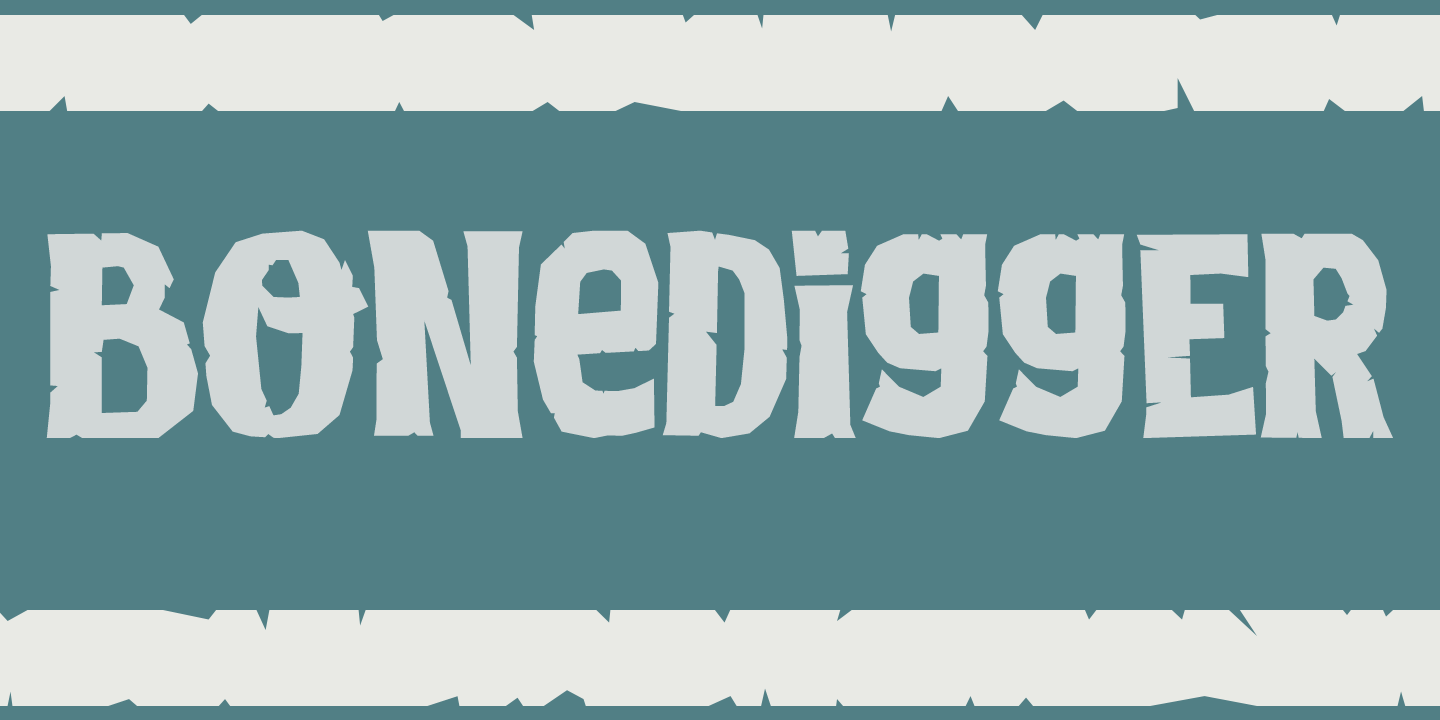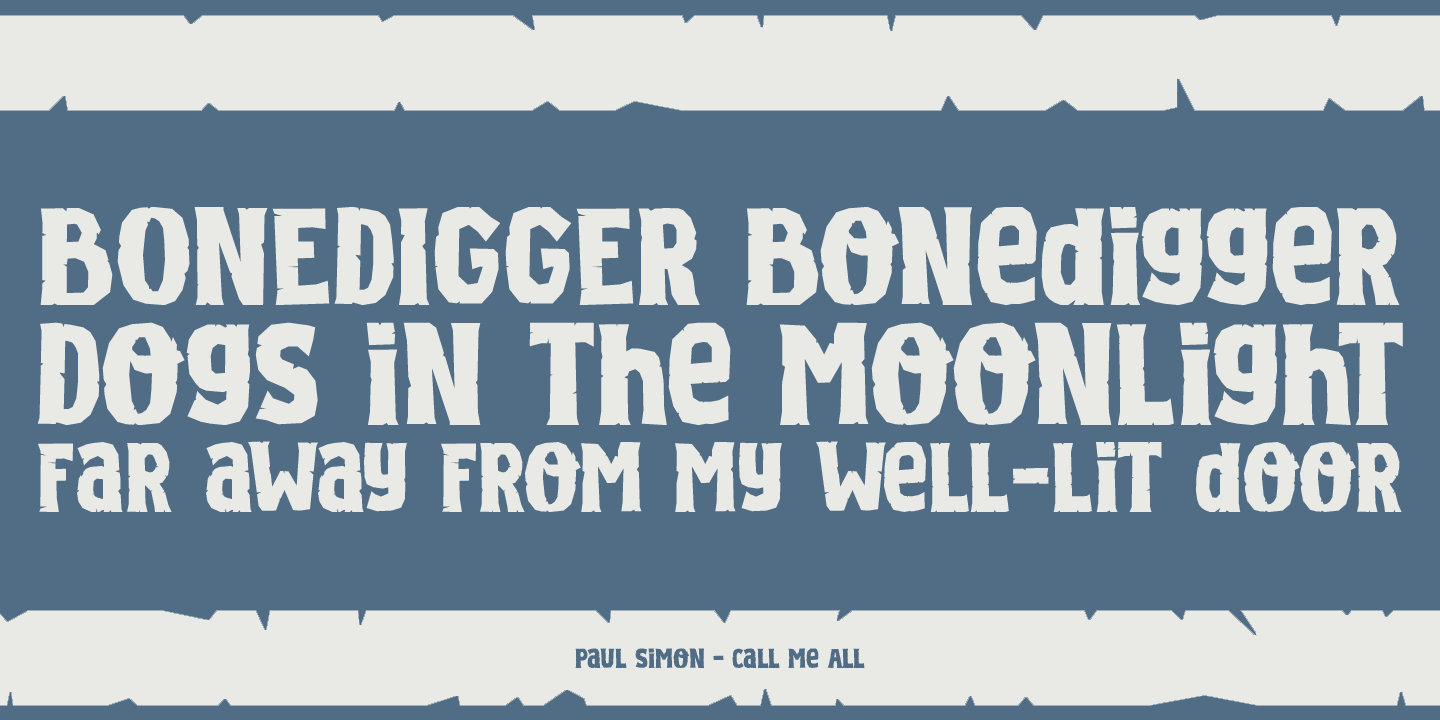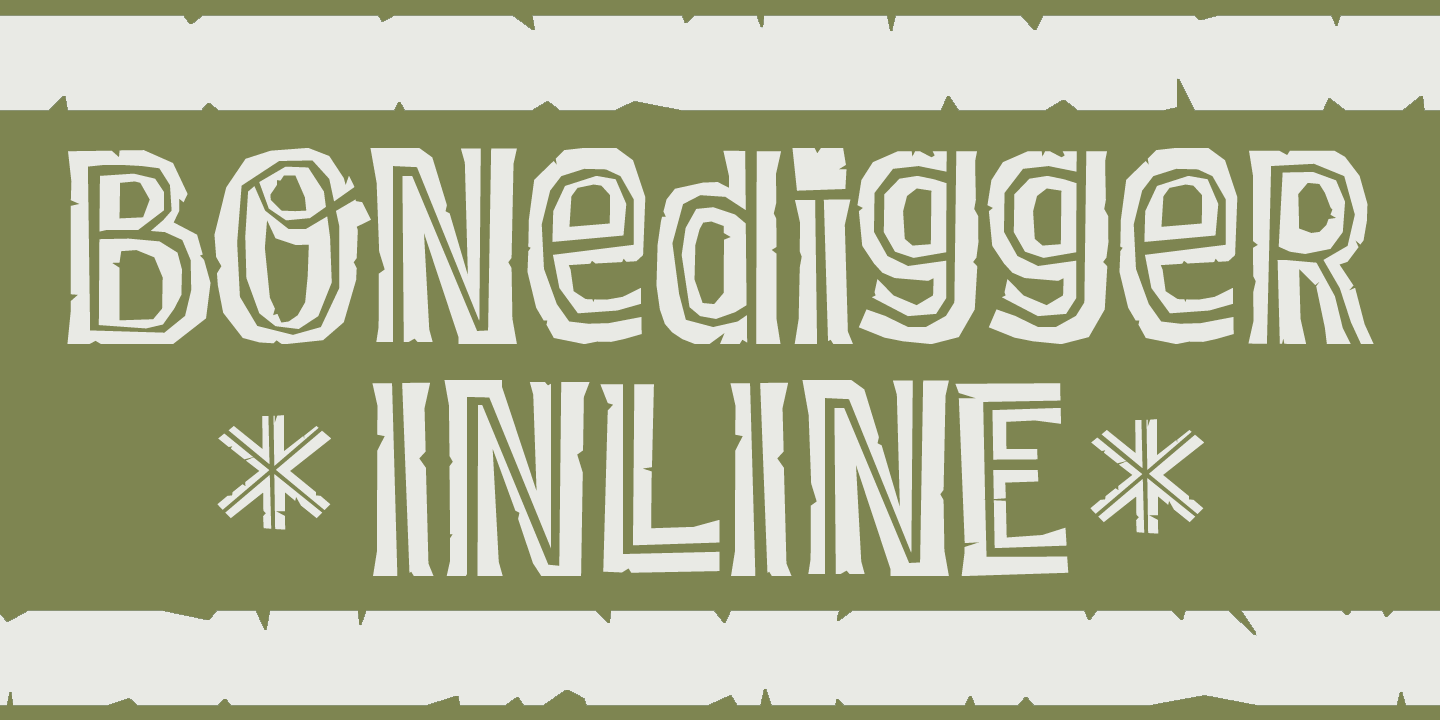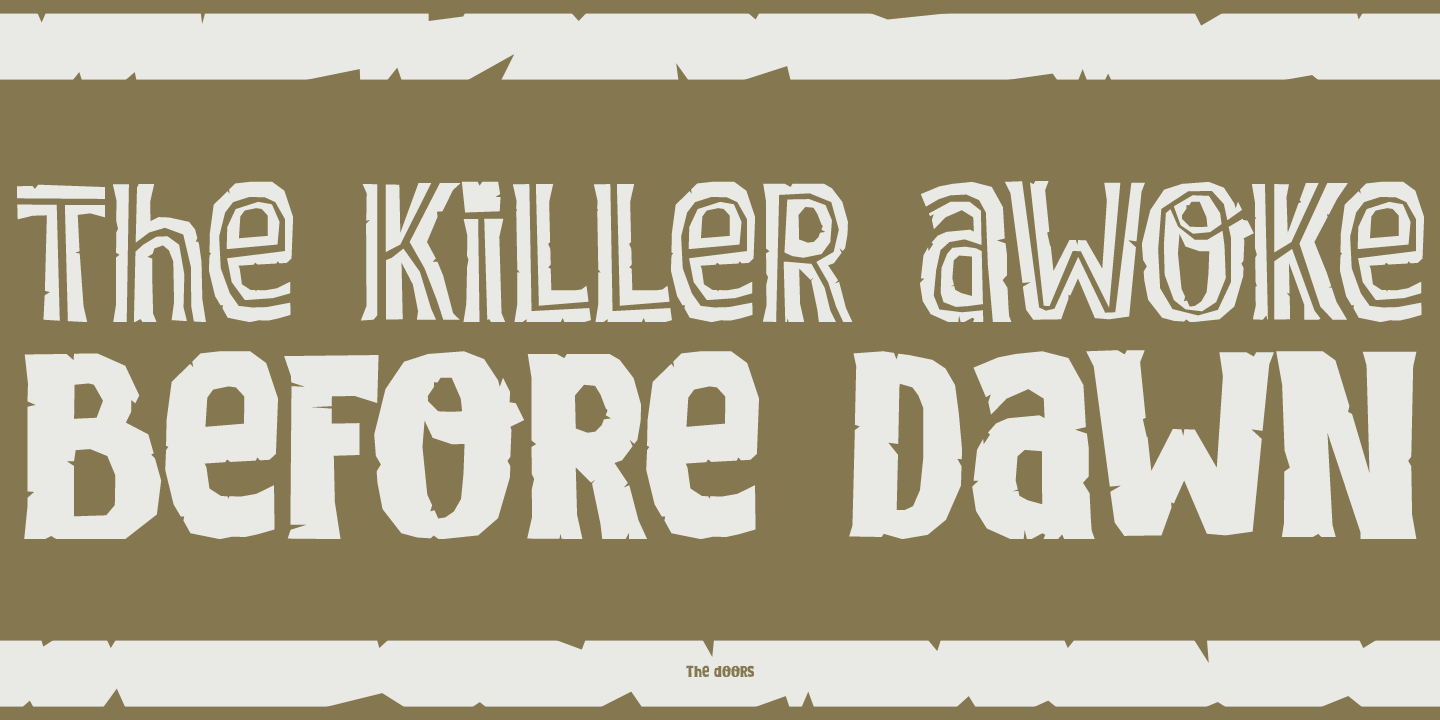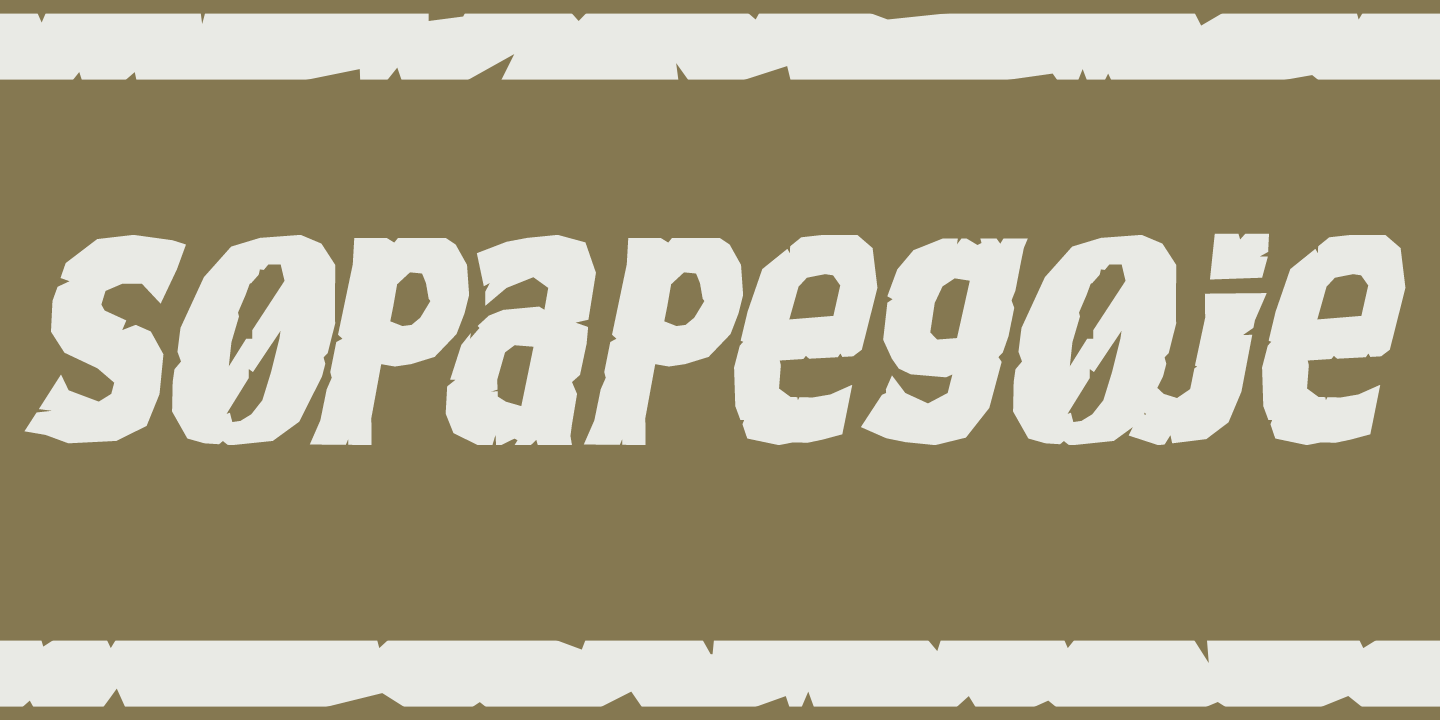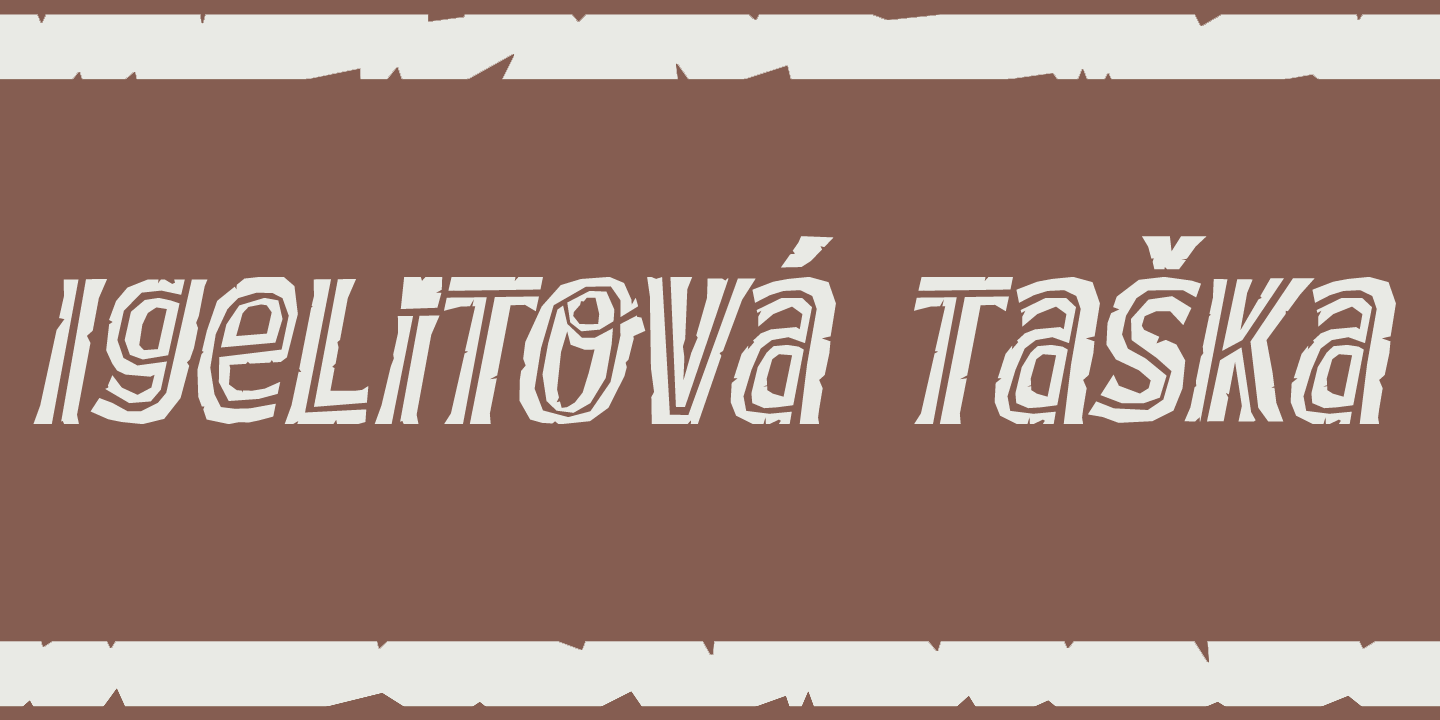
Bonedigger
For some reason I had Paul Simon's song ?You Can Call Me All? in my head when I was busy working on this font, so I just had to call it Bonedigger. Bonedigger does not dig bones, but it does have ?heavy bones?, as it is quite big. Bonedigger is seriously eroded and would look great on book covers and product packaging.
It comes in a lovely regular and italic style and a seriously twisted inline style (with, of course, its own italic). As the song goes: With a knick-knack paddywhack, give the dog a bone, this old font came rolling home.